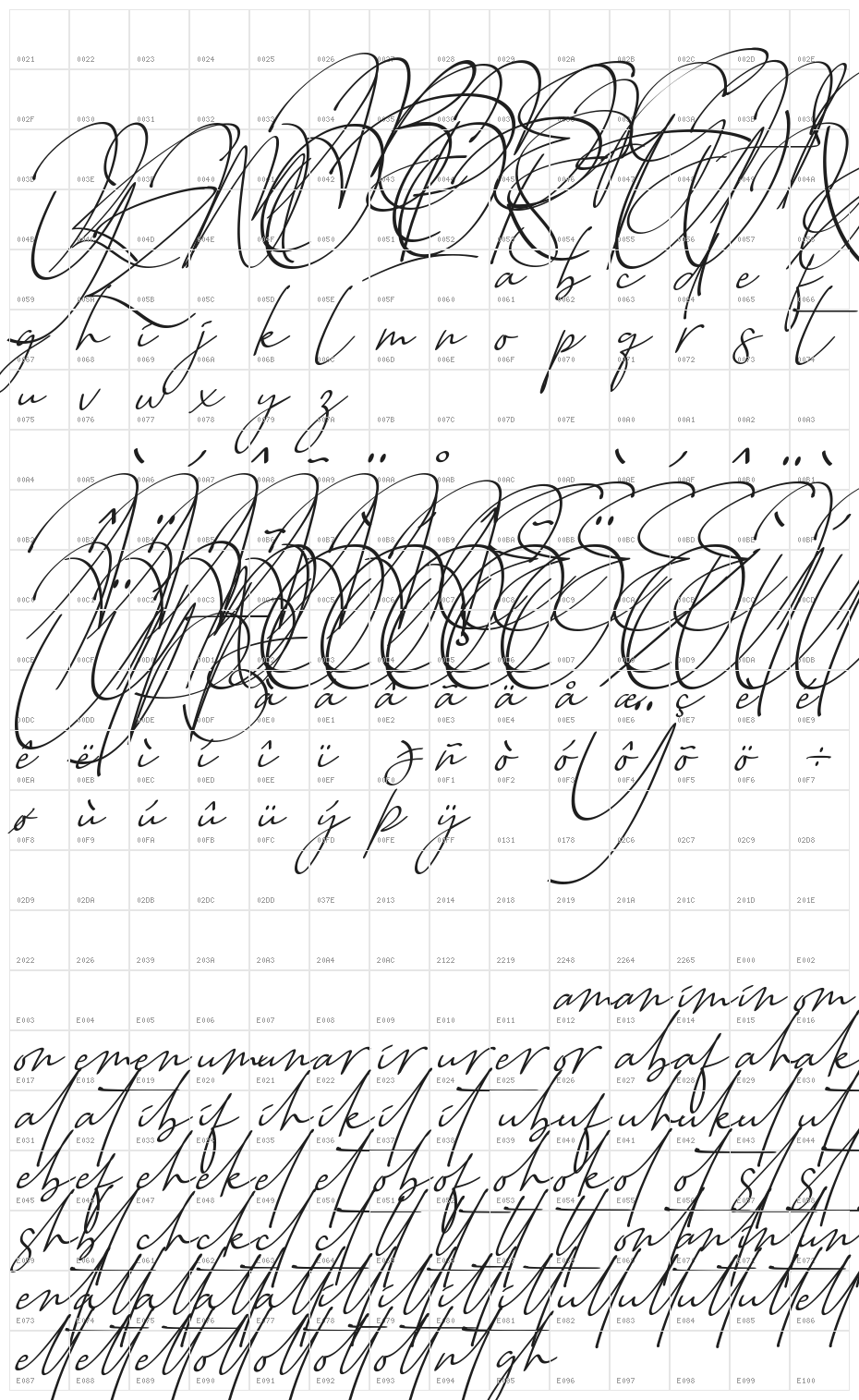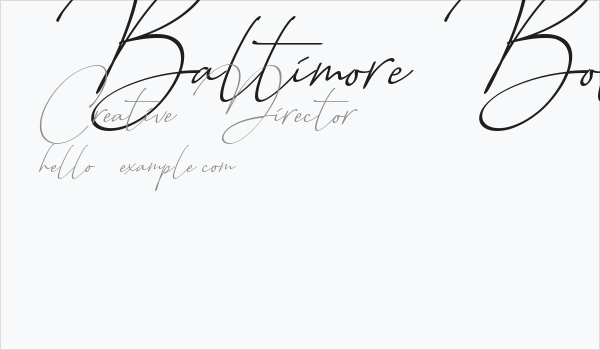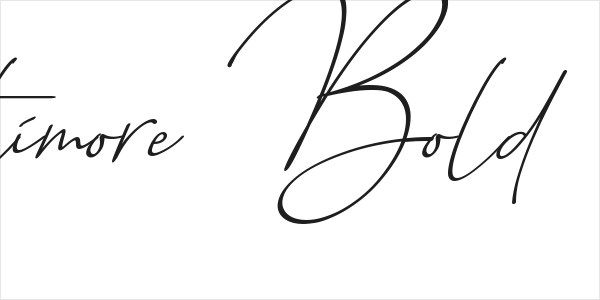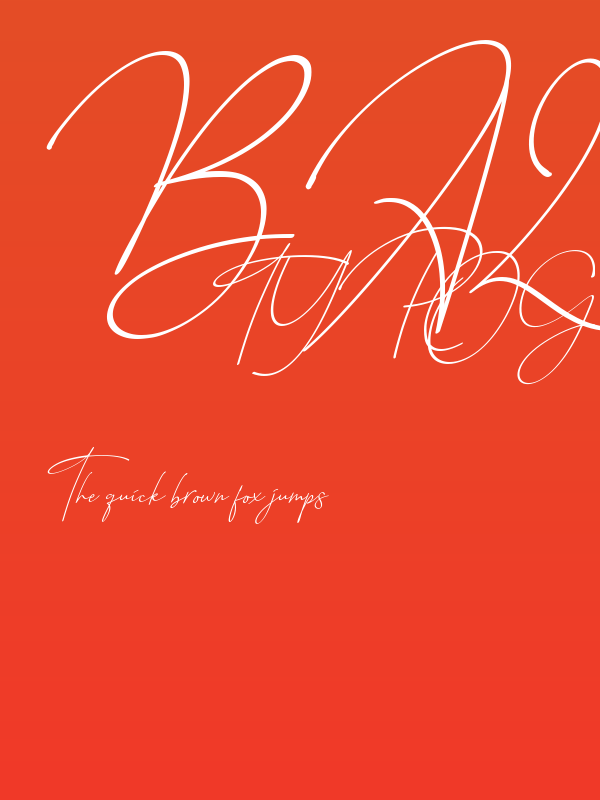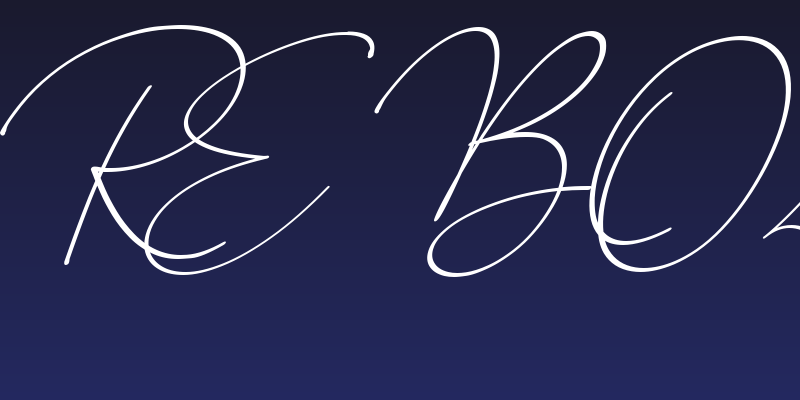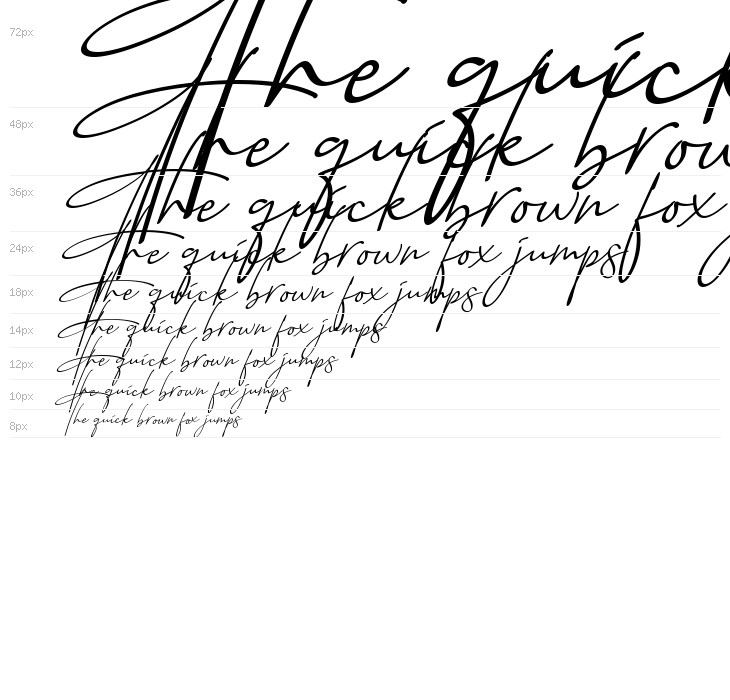
Baltimore Bold - Italic Font
Baltimore Bold - Italic Description
This font exudes elegance and sophistication with its flowing, cursive style. The letters are interconnected, creating a seamless and fluid appearance. The strokes are varied, with some parts being thick and others thin, adding a dynamic contrast that enhances its visual appeal. The uppercase letters are tall and graceful, while the lowercase letters maintain a consistent rhythm and flow. This font is perfect for conveying a sense of luxury and refinement, making it ideal for formal invitations, branding, and high-end product packaging.
Overall StyleElegant
Use CaseLogos, Invitations, Branding
Proposed ProjectsIdeal for wedding invitations, luxury branding, high-end product packaging, and elegant signage.